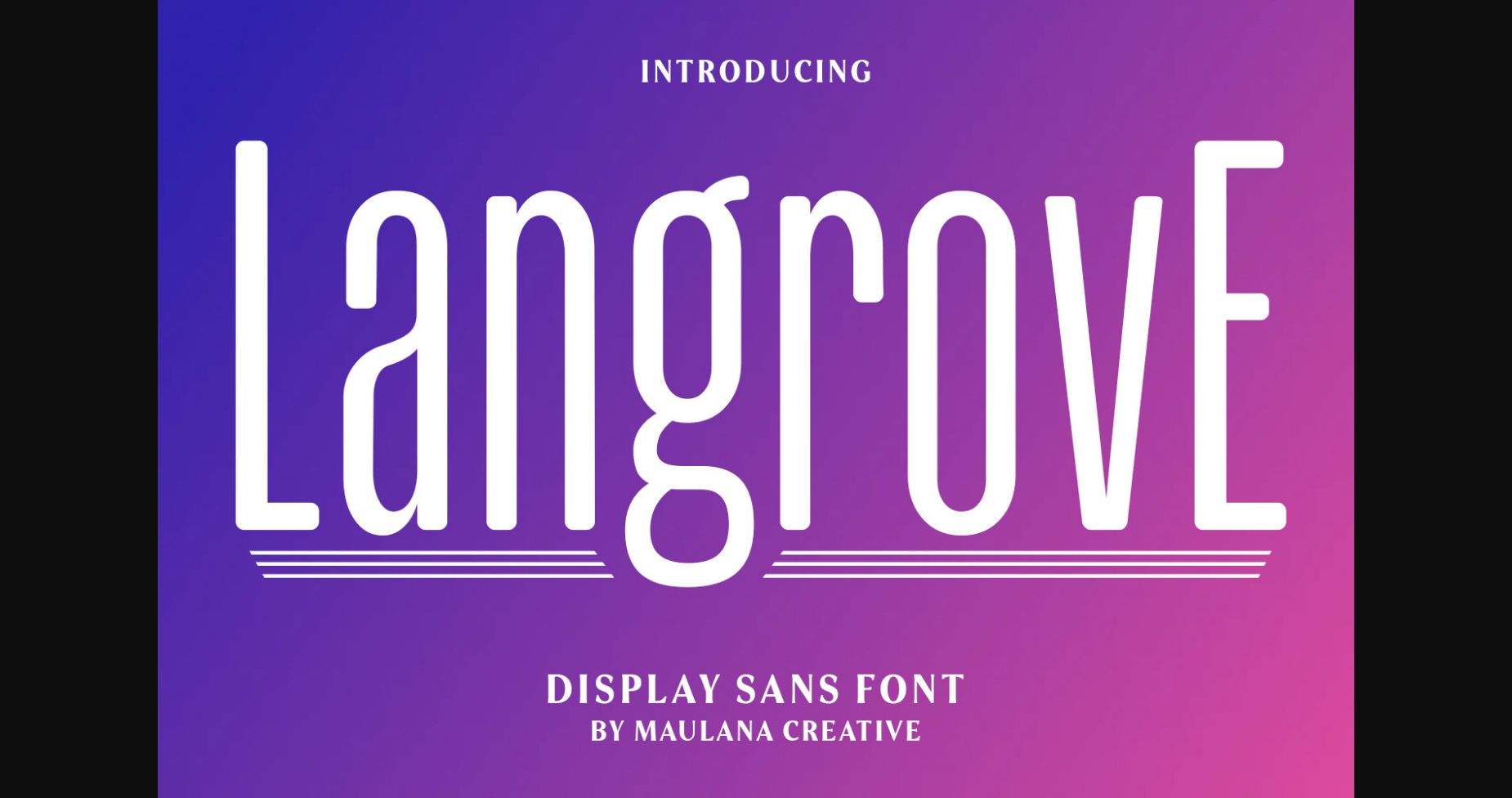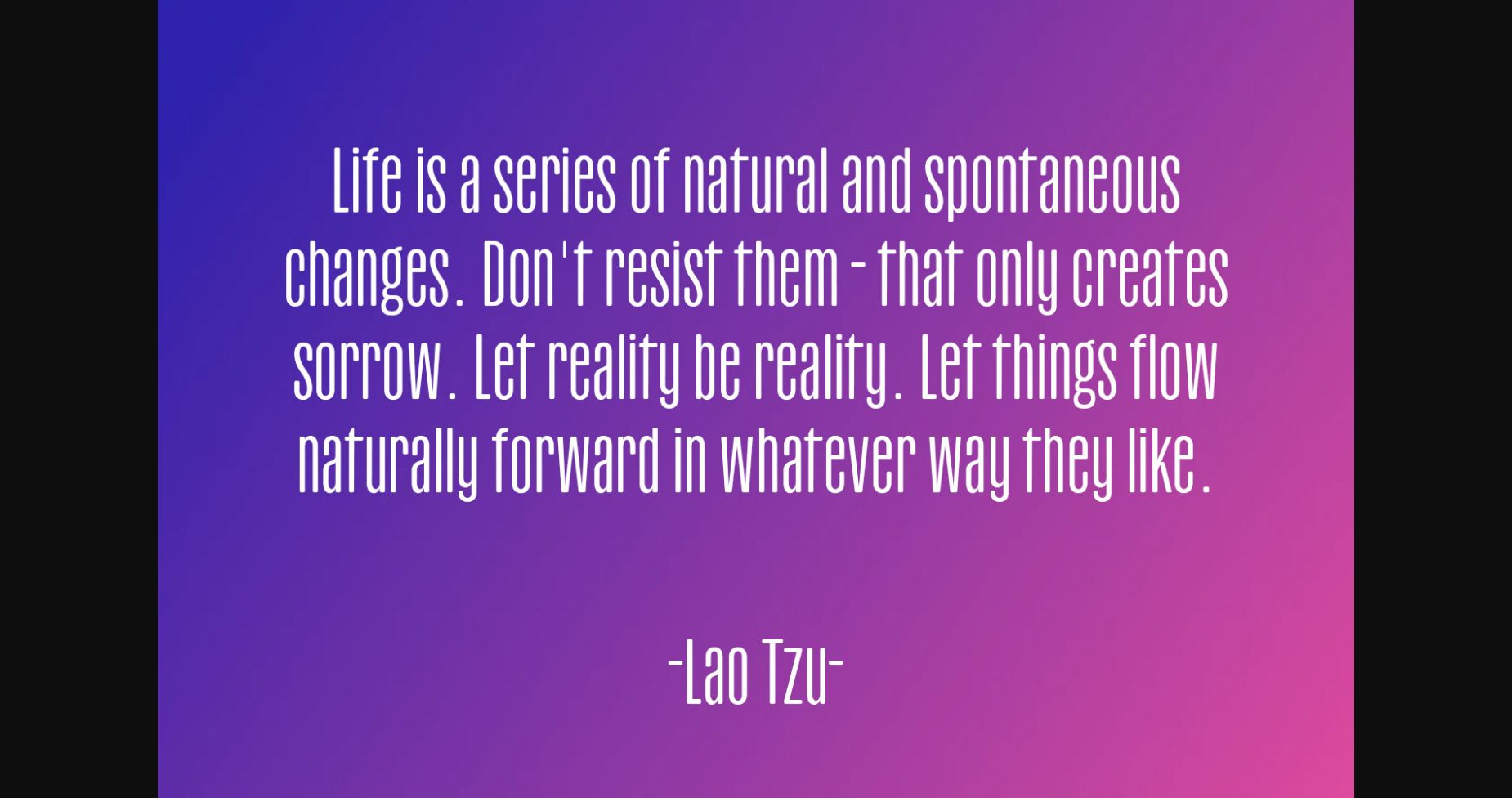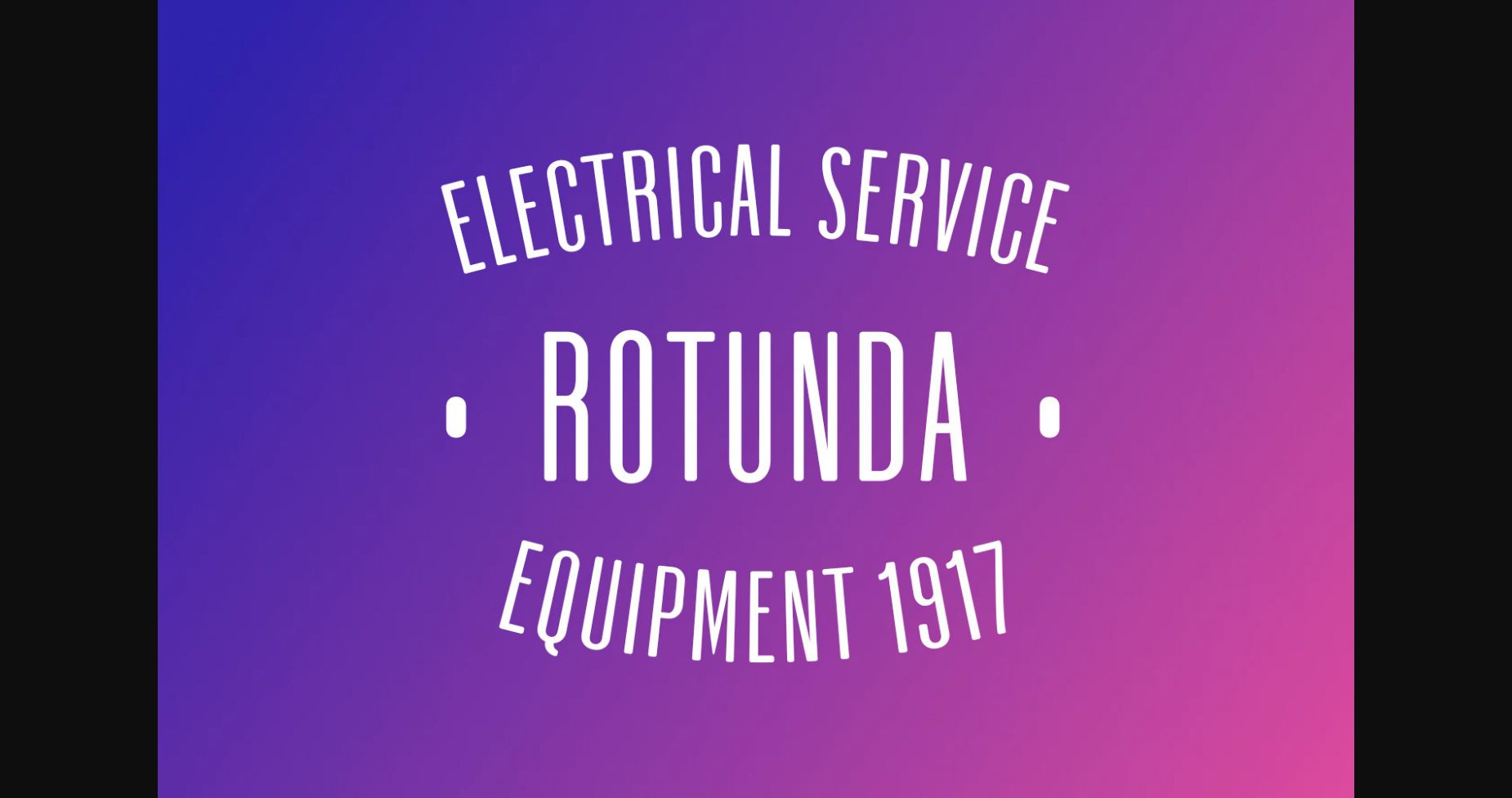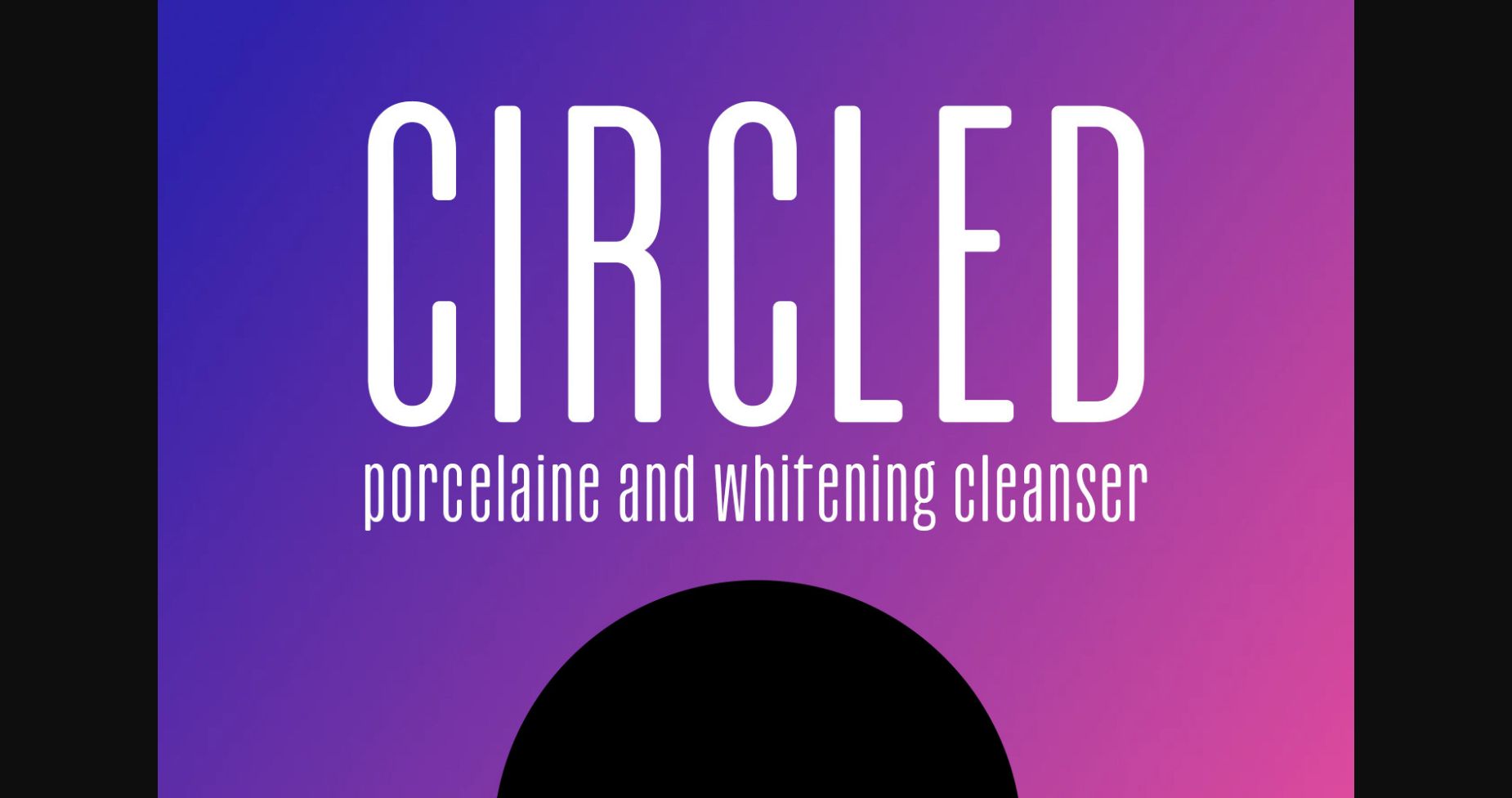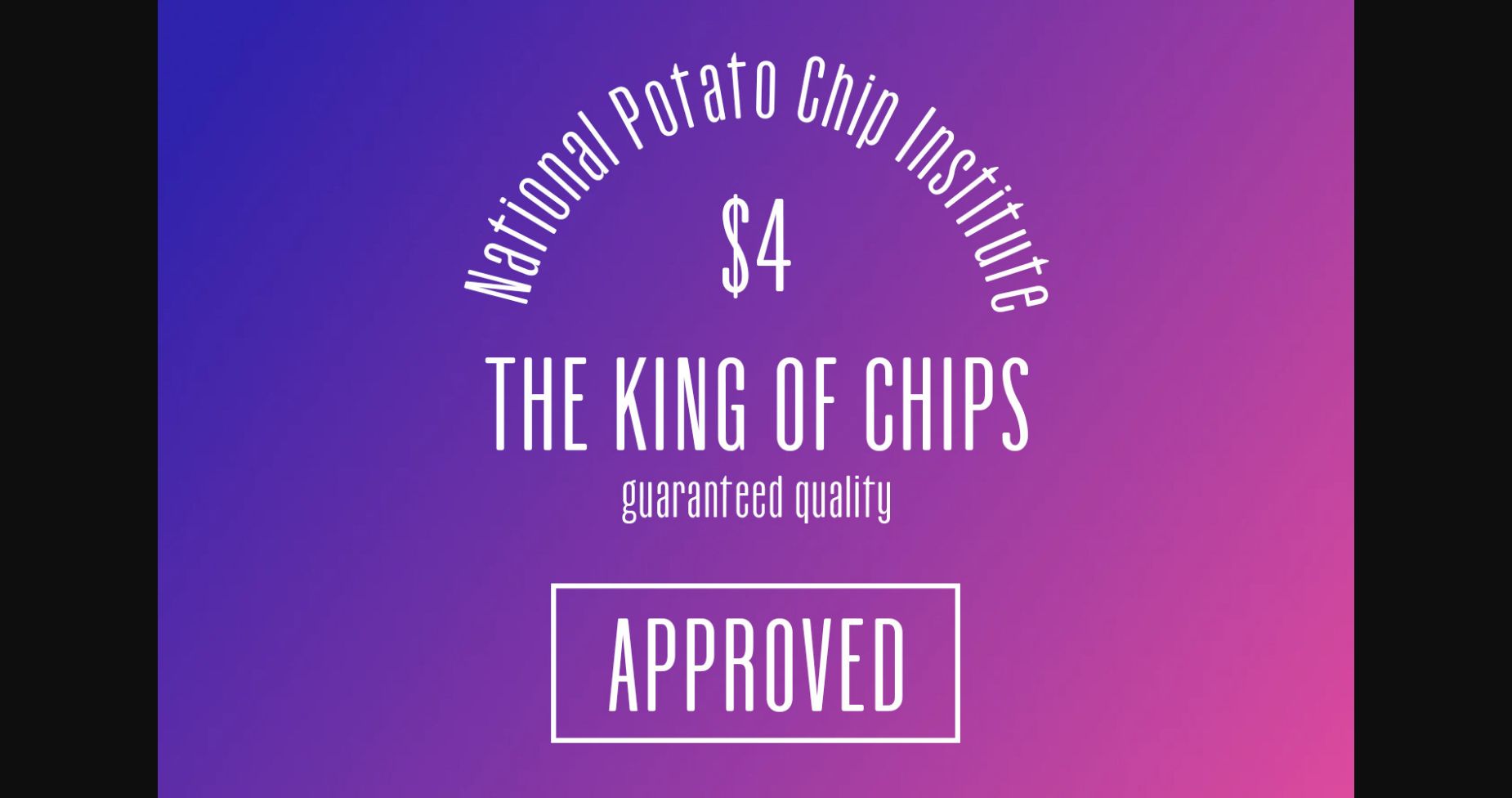
Langrove Font
About Langrove Font
Langrove is a modern, tall sans serif font. No matter the topic, this font will be an incredible asset to your fonts’ library, as it has the potential to elevate any creation.